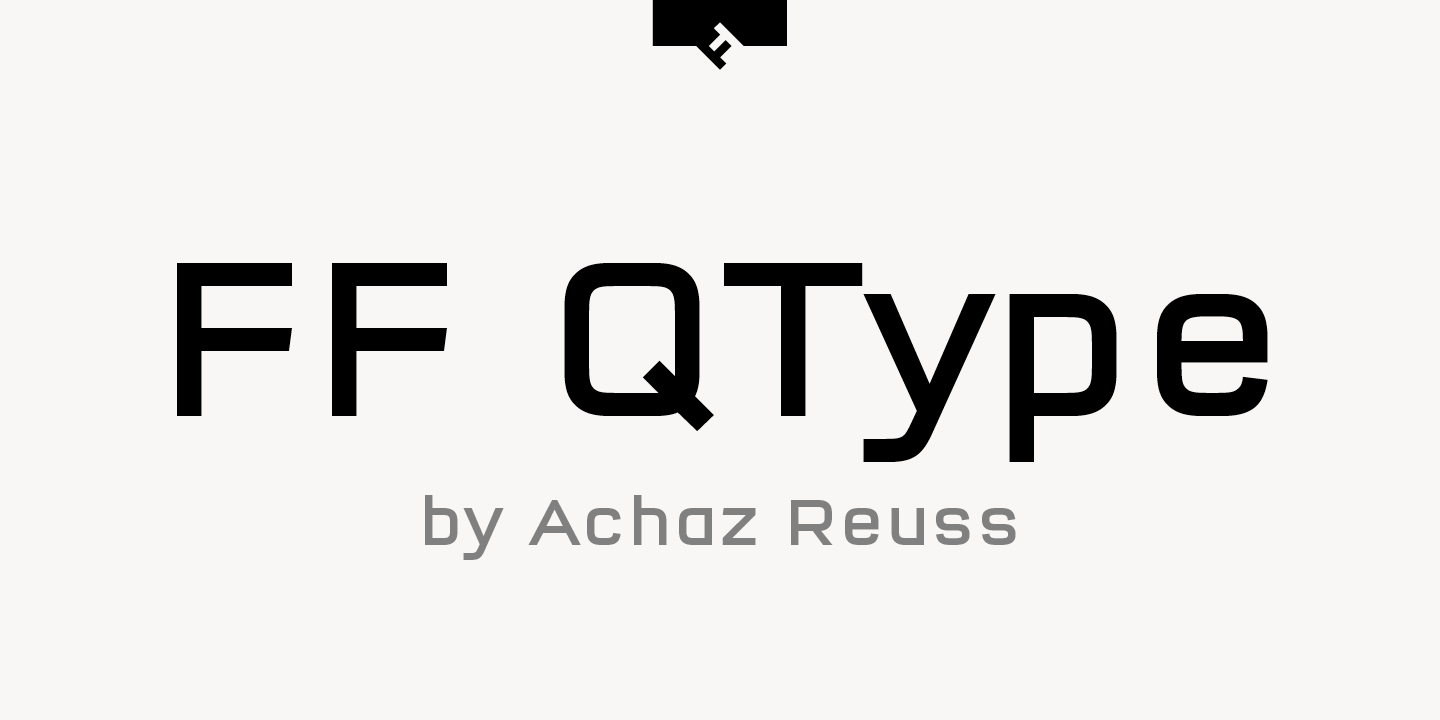
FF QType Font is perfect for modern editorial design, contemporary magazine layouts, digital publishing platforms, sophisticated brand identity, progressive corporate communications, innovative web typography, cutting-edge design studios, and forward-thinking cultural institutions. This intellectually refined typeface excels in projects requiring typographic sophistication and contemporary elegance where advanced design meets exceptional readability standards.
What makes FF QType Font exciting is its masterful balance of geometric precision with humanist warmth, creating a typeface that feels both intellectually rigorous and emotionally accessible. The font features meticulously crafted characters with optimized proportions and contemporary details that convey intelligence, sophistication, and the progressive spirit of modern design thinking. Its refined character makes it perfect for brands and publications seeking to communicate authority while maintaining approachable contemporary appeal.
FF QType Font family includes comprehensive weight variations and stylistic alternatives that provide extensive design flexibility for complex editorial and branding applications. The family typically offers thin, light, regular, medium, semibold, bold, and black weights, along with corresponding italic styles and advanced OpenType features that enable sophisticated typographic compositions and professional publishing standards.
Whether you're developing contemporary magazine systems, creating progressive brand identity, or designing innovative digital publications, FF QType Font Free Download delivers exceptional typographic sophistication across all modern applications. This font's intellectual appeal and contemporary refinement make it ideal for publishers, design studios, and cultural organizations committed to advancing typographic excellence and design innovation.
The meticulously engineered letterforms and contemporary proportions of FF QType Font ensure outstanding readability while projecting intellectual authority and design sophistication at any scale. Its progressive design and typographic excellence create lasting impressions that resonate with design-conscious audiences and cultural thought leaders. Download FF QType Font today and elevate your design projects with this intellectually sophisticated typeface that perfectly embodies the intersection of typographic precision and contemporary design innovation.